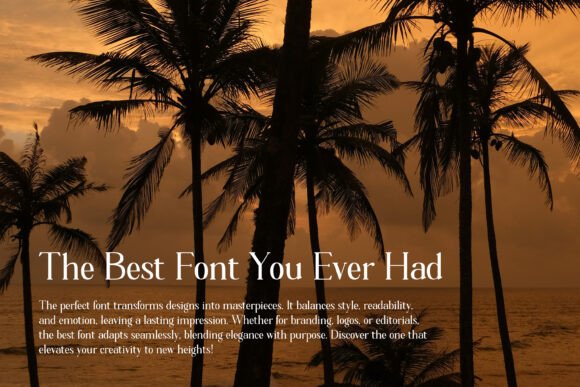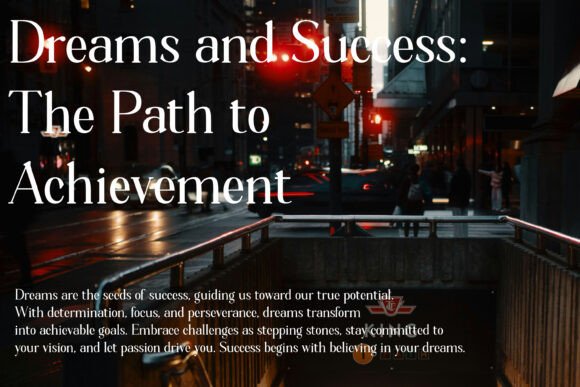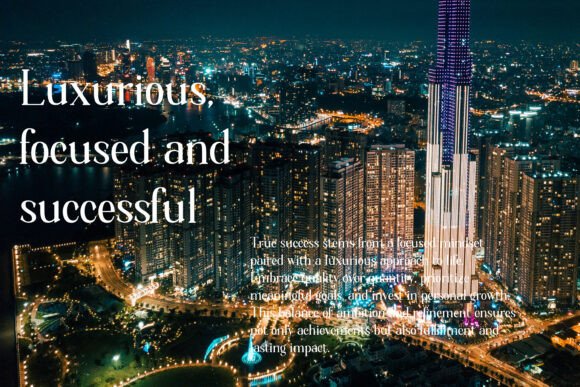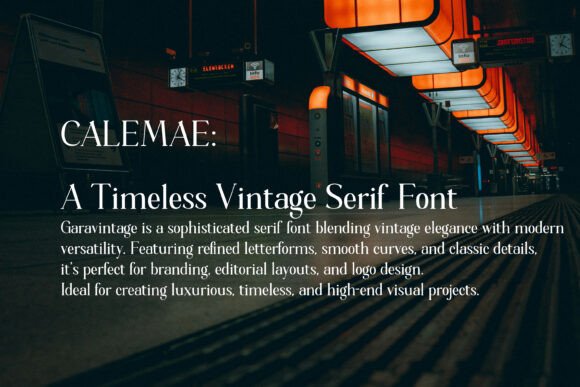
Discover the Beauty of Celemae Font: Elevate Your Designs with Timeless Elegance
In the world of typography, fonts play a crucial role in conveying the tone and personality of a brand or design. Among the numerous fonts available, Celemae stands out as a sophisticated serif font that seamlessly blends elegance and versatility. Whether you’re a designer, craftsperson, or simply a typography enthusiast, Celemae is sure to captivate you with its refined serifs and harmonious letterforms.
The Essence of Celemae Font
Celemae is a meticulously crafted serif font that exudes a sense of timeless charm. Its design is characterized by refined serifs, carefully proportioned letterforms, and a harmonious balance of curves and lines. This thoughtful design approach makes Celemae an excellent choice for a wide range of applications, from branding and logo design to product packaging and editorial layouts.
Key Features of Celemae Font
- Sophisticated Serif Design: Celemae’s serif design is both elegant and understated, lending a touch of sophistication to any project.
- Versatile: Celemae’s versatility makes it suitable for various design applications, from modern and minimalist to classic and traditional.
- Refined Letterforms: Each letterform in Celemae has been carefully crafted to ensure optimal legibility and aesthetic appeal.
- Harmonious Balance: The font’s design is characterized by a harmonious balance of curves and lines, creating a visually appealing and cohesive look.
Applications of Celemae Font
Celemae’s versatility and timeless elegance make it an excellent choice for various design applications, including:
- Branding: Use Celemae to create a lasting impression with your brand’s logo, ensuring a sophisticated and professional image.
- Logo Design: Celemae’s elegant serifs and refined letterforms make it perfect for crafting logos that exude elegance and sophistication.
- Product Packaging: Add a touch of luxury to your product packaging with Celemae, elevating your brand’s perceived value.
- Editorial Layouts: Use Celemae to create visually appealing editorial layouts, such as magazines, newspapers, and books, that convey a sense of professionalism and sophistication.
Why Choose Celemae Font?
With numerous fonts available, why should you choose Celemae for your design projects? Here are a few compelling reasons:
- Timeless Appeal: Celemae’s classic design ensures that your projects will remain stylish and relevant for years to come.
- Professional Look: Celemae’s refined serifs and harmonious letterforms create a professional and captivating look, perfect for designs that require a touch of sophistication.
- Versatility: Celemae’s versatility makes it suitable for a wide range of design applications, allowing you to experiment with different styles and ideas.
In conclusion, Celemae font is a sophisticated serif font that offers a unique blend of elegance and versatility. Its refined serifs, harmonious letterforms, and timeless appeal make it an excellent choice for designers, craftspersons, and typography enthusiasts. Whether you’re working on branding, logo design, product packaging, or editorial layouts, Celemae is sure to elevate your designs with its captivating and professional look.
Discover the beauty of Celemae font and experience the difference it can make in your design projects. With its classic design and versatile nature, Celemae is poised to become a staple in your typography collection.